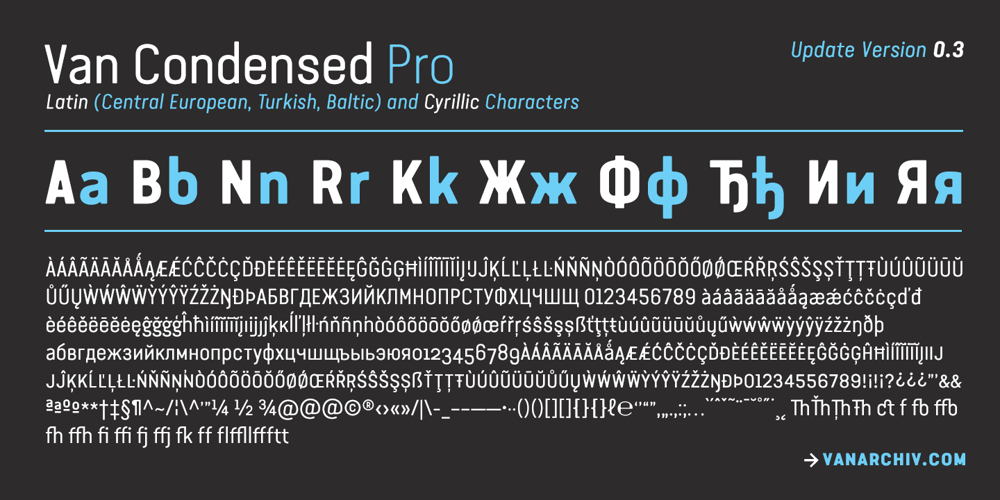
Van Condensed Font Family was designed by Ricardo Santos and published by Vanarchiv. Van Condensed contains 6 styles and family package options. Van Condensed is a rounded display sans-serif typeface family with a geometric style. The first drawings were done in 1998 but the family was not completed until 2004. The Van condensed family has three weights: Light, Regular, Bold, all of them with an italic version. The letters have a low contrast and the x-height is medium, the ascenders and descender strokes are long which improve leading. This letters don’t have any stress between thick and thin strokes because they have a geometric and linear structure. The associated Dingbats (included in the family package) complement this family and have the same round treatment like the typeface.